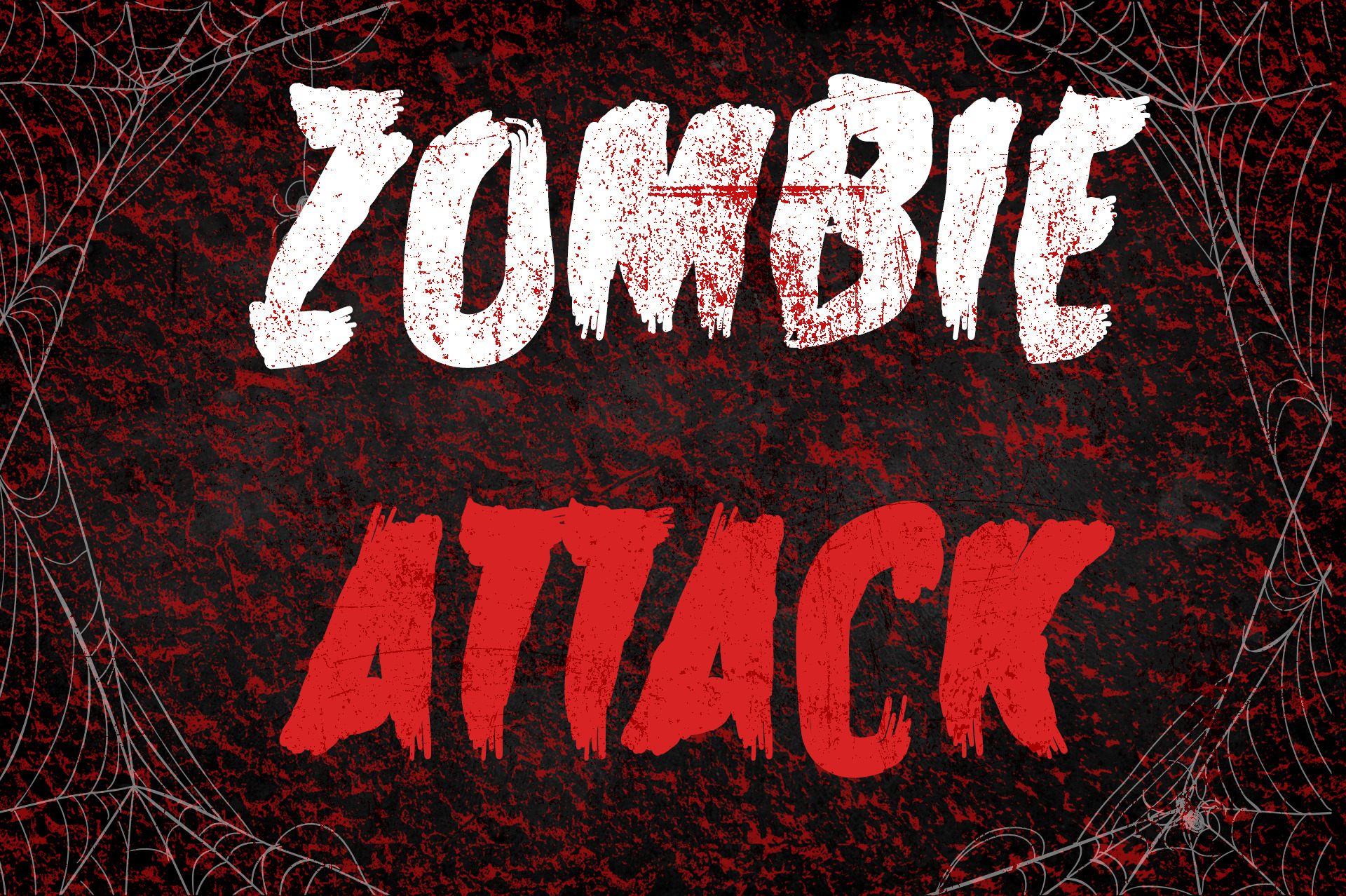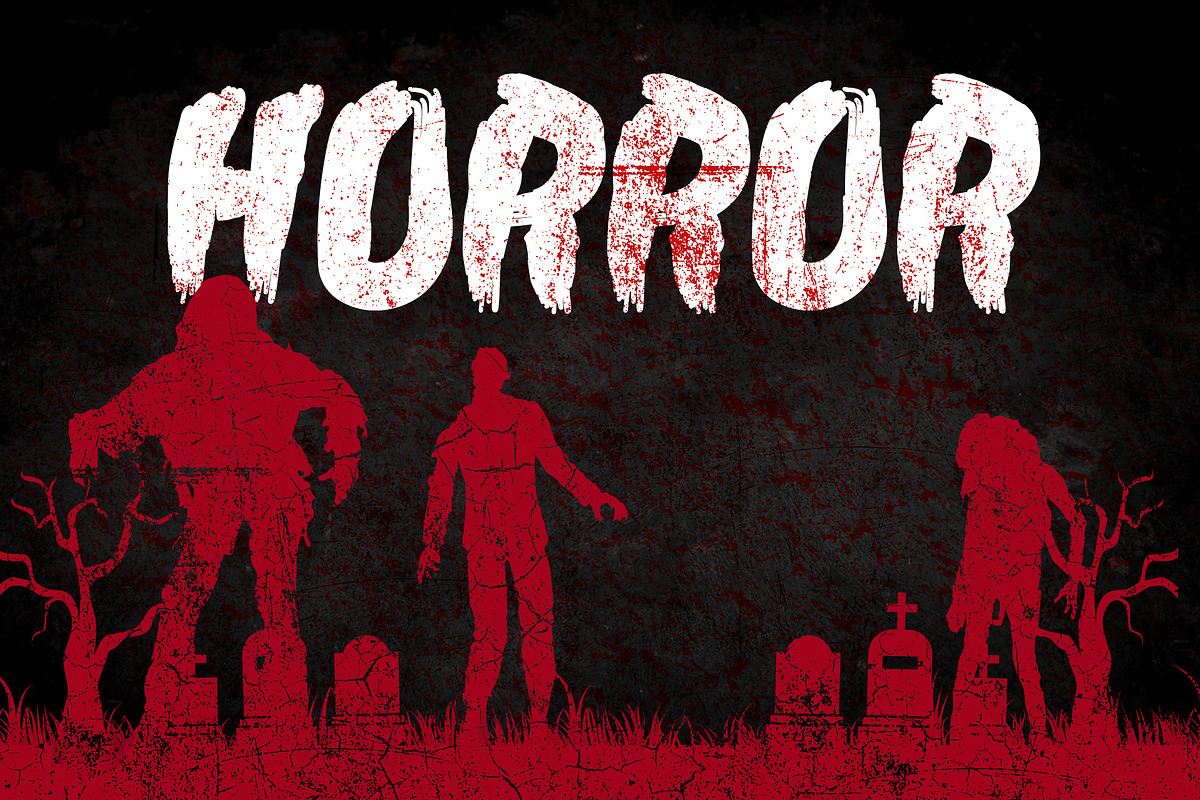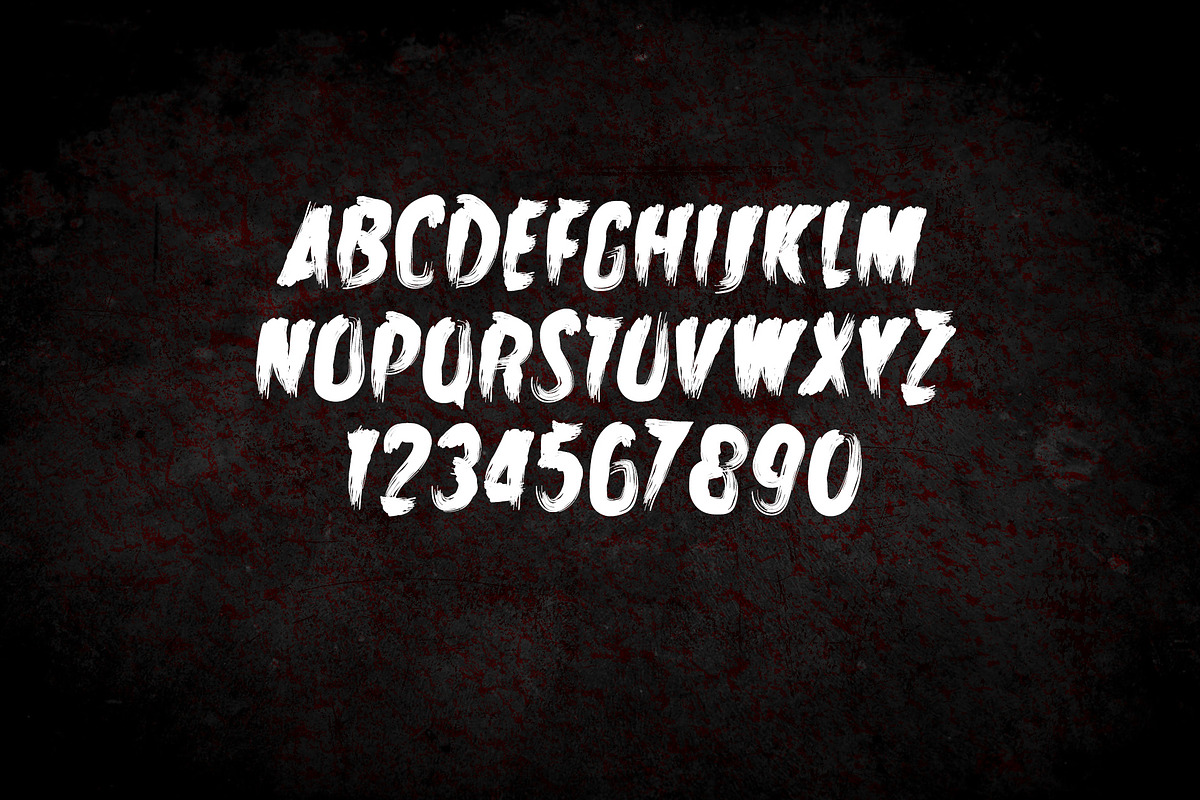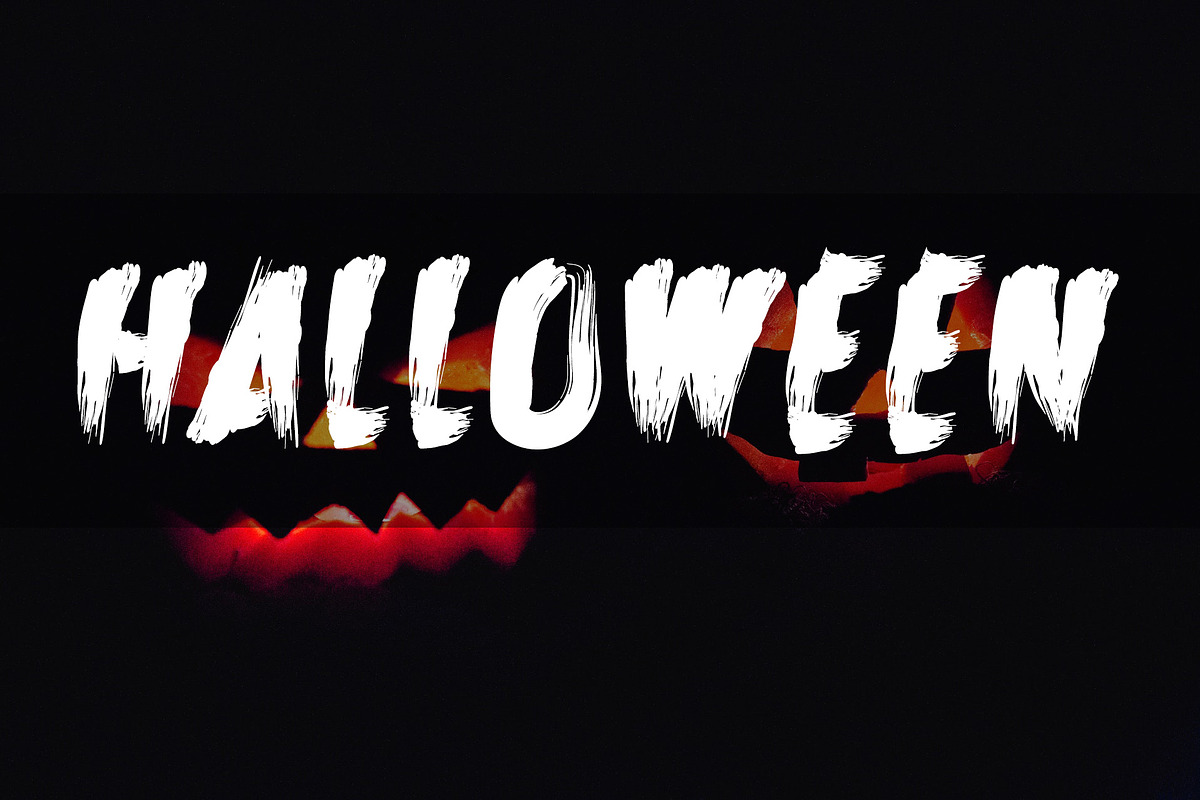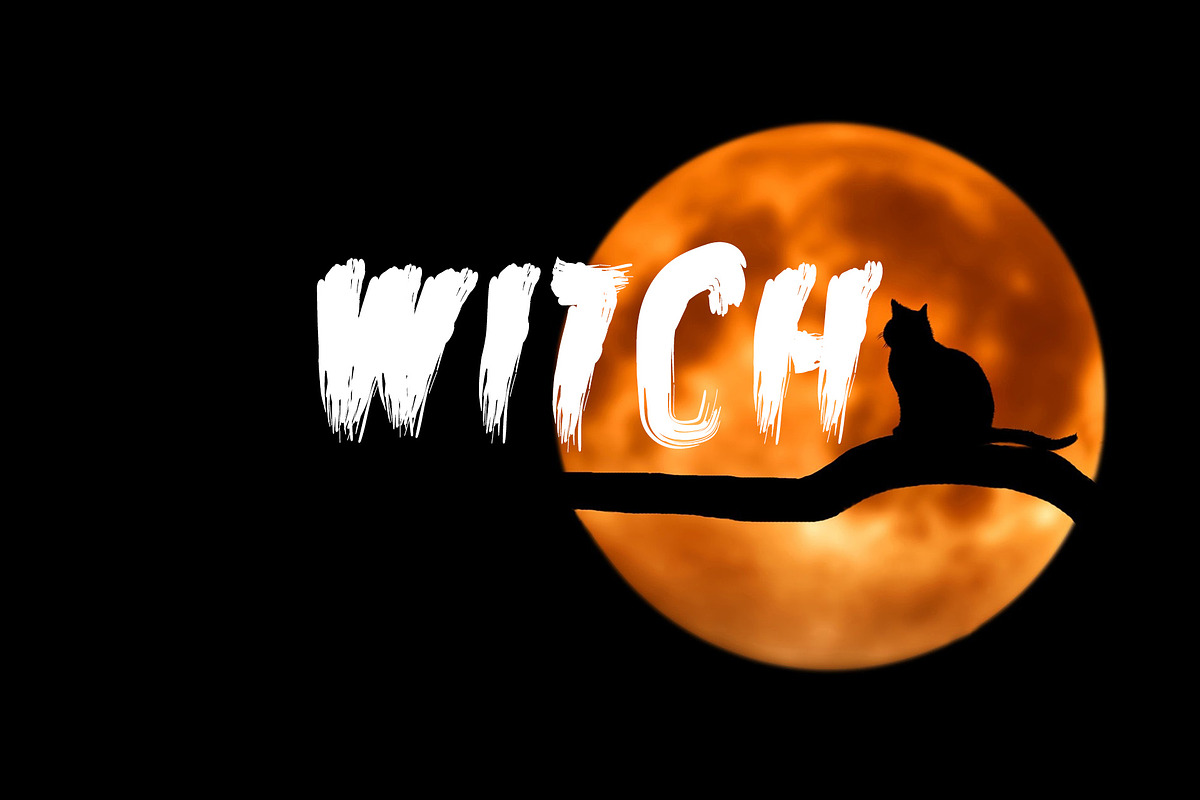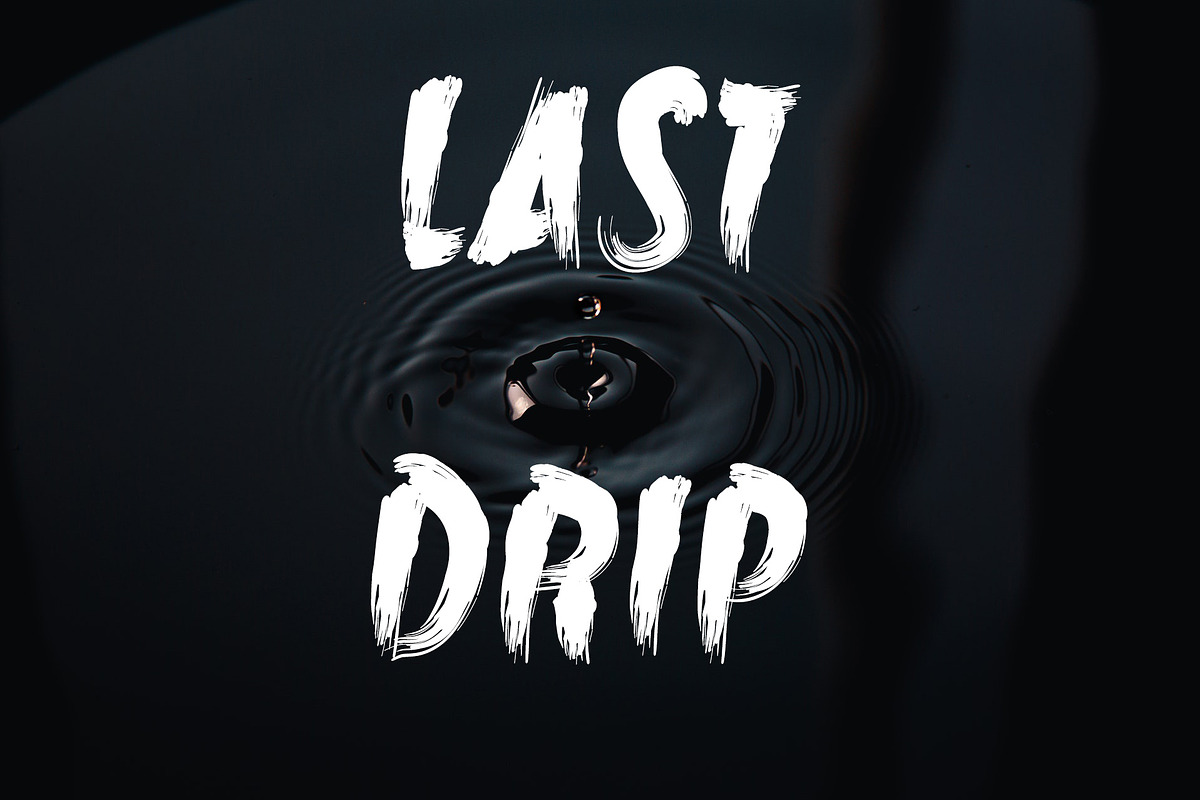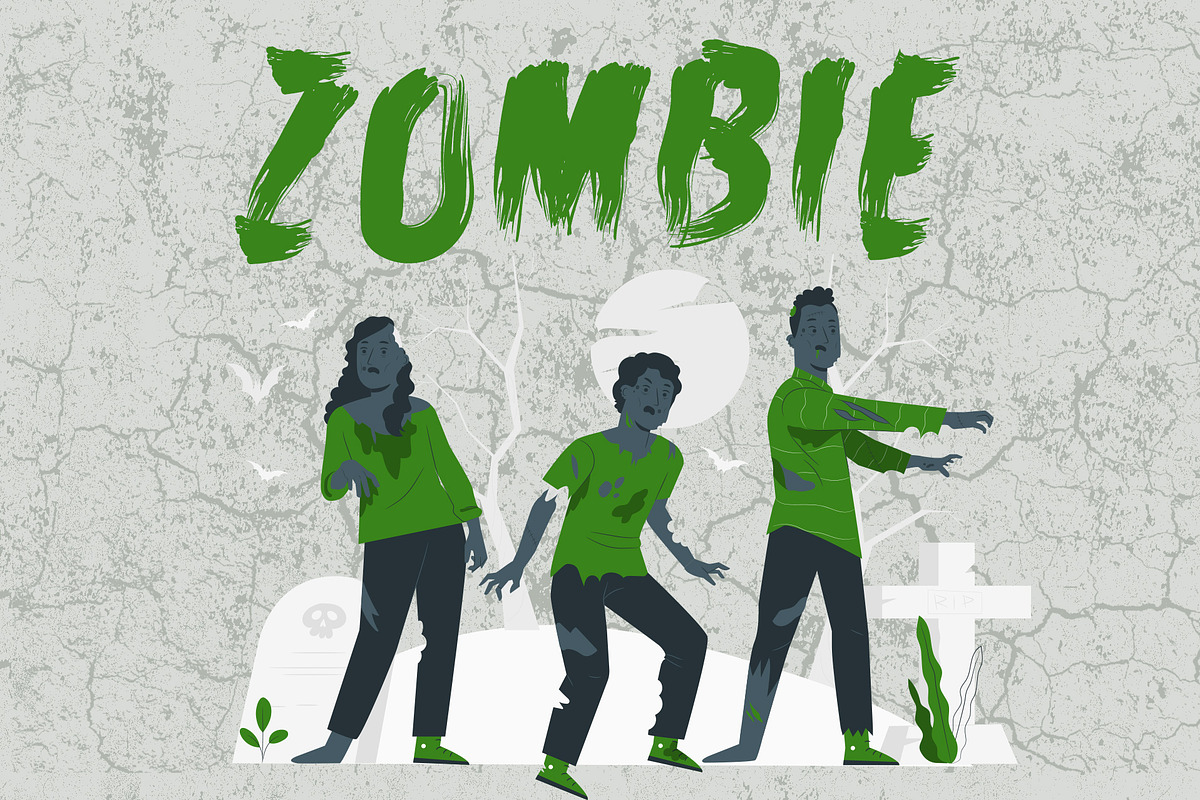
Zombie Attack Halloween Font
Zombie Attack Horror Brush Font. Zombie Attack is a handwritten font. It features a spooky feel and it will look amazing in your Halloween projects!
Spooky Brush Horror Font.